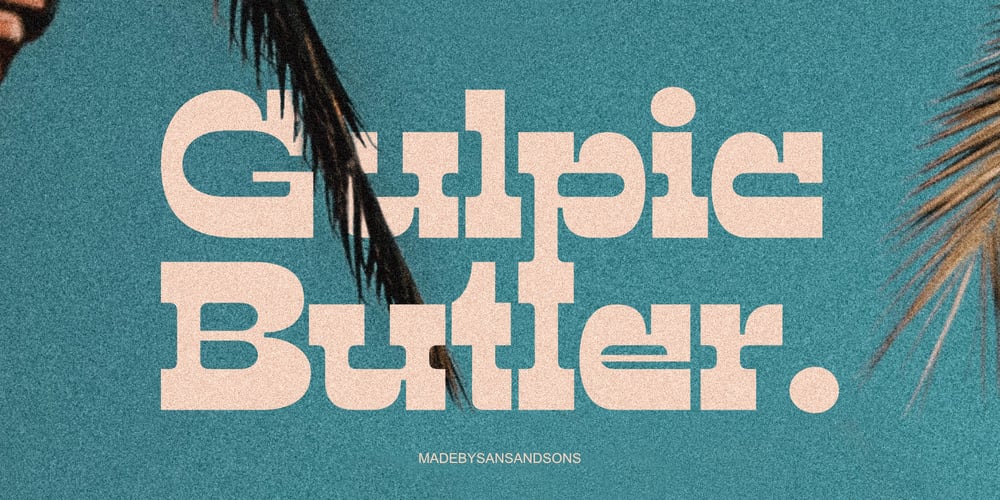
Gulpic Butler Font Family was designed by Angga Suwista and published by Sans And Sons. Gulpic Butler contains 1 styles and family package options. Meet “Gulpic Butler” — a bold serif font that mixes retro vibes with modern cool.With fun curves and standout serifs, “Gulpic Butler” adds a unique flair to any project. Perfect for branding, posters, and more, this font brings a timeless, playful touch. Make your designs pop with “Gulpic Butler” — where every letter has personality!